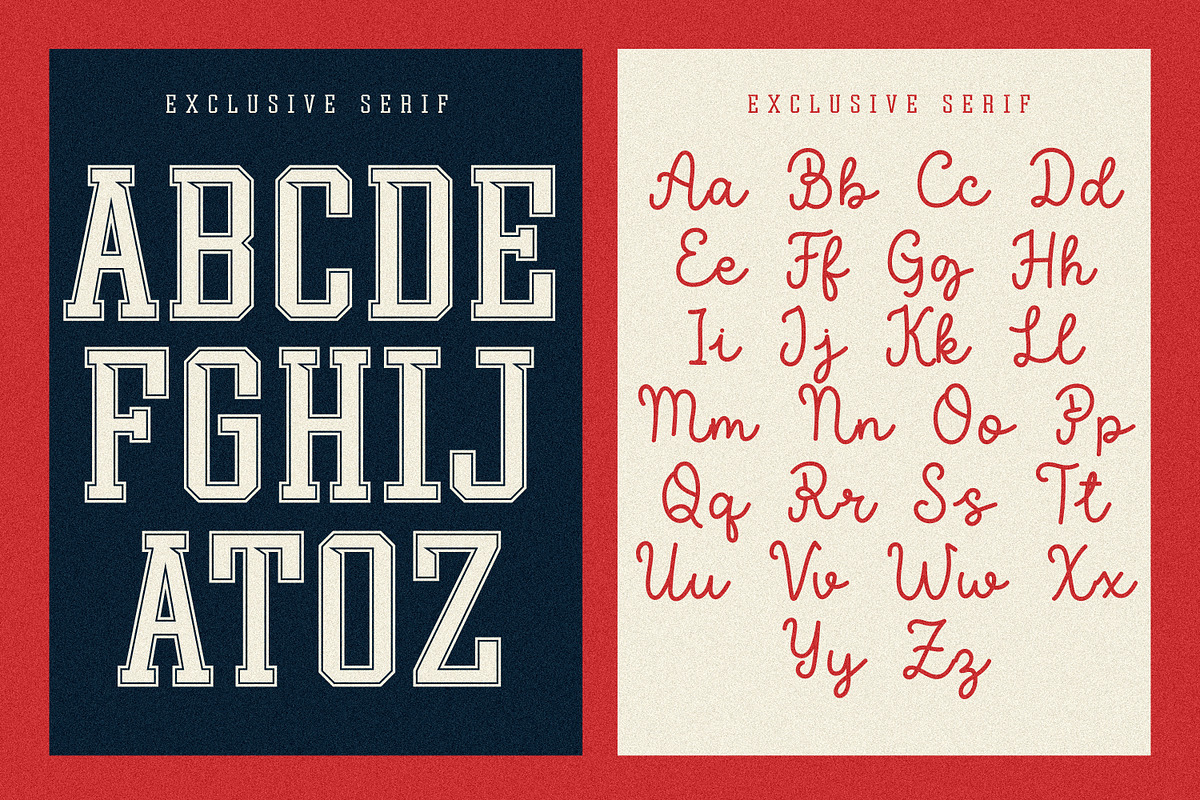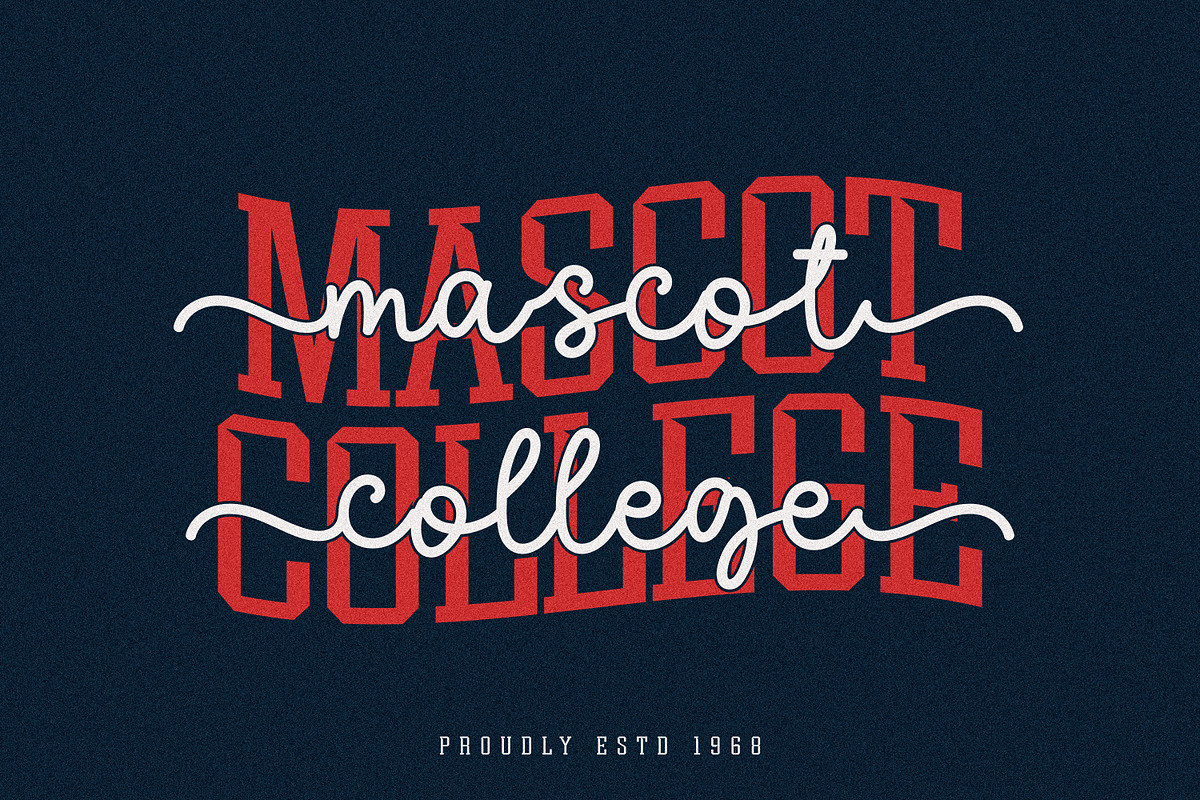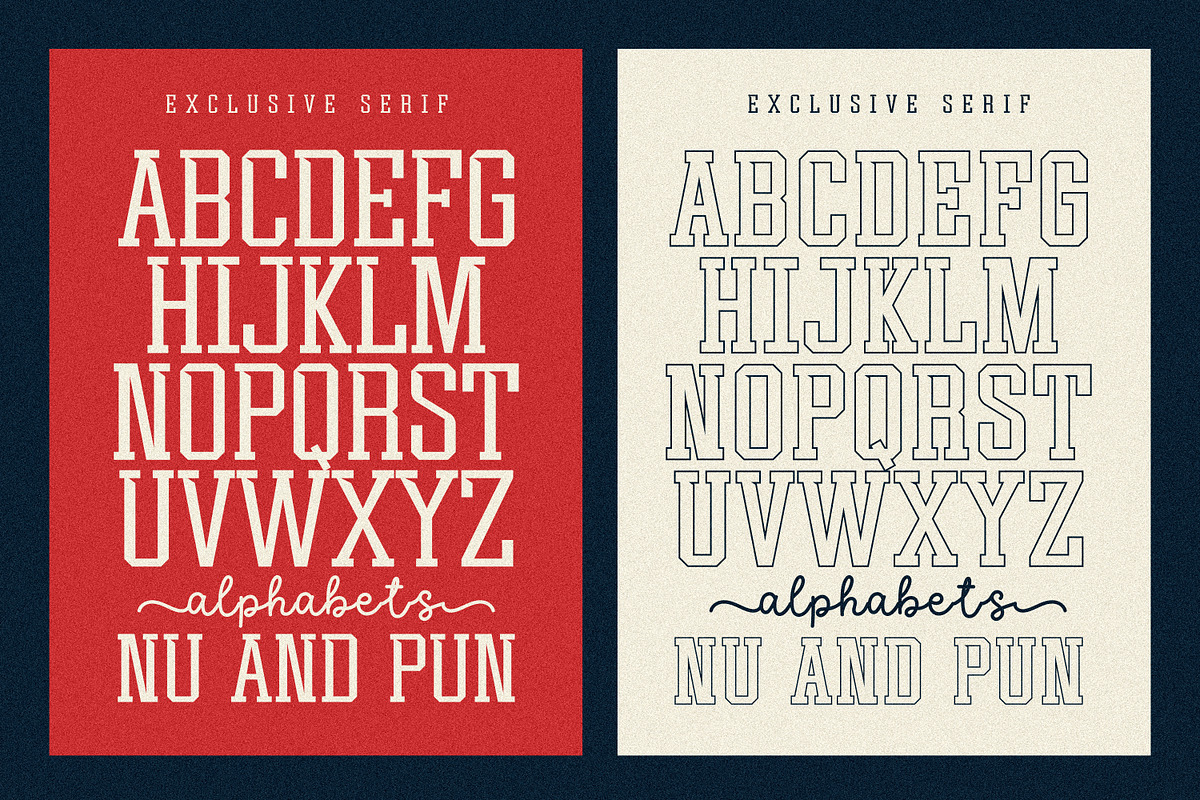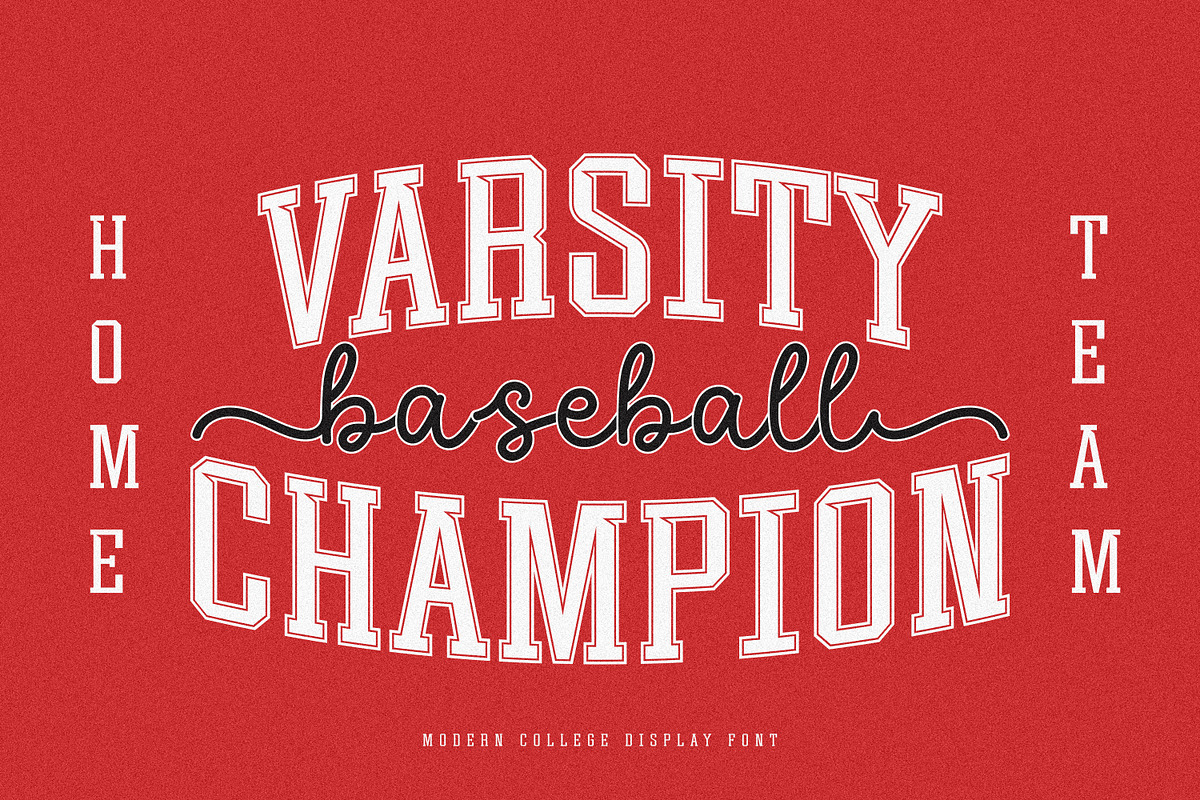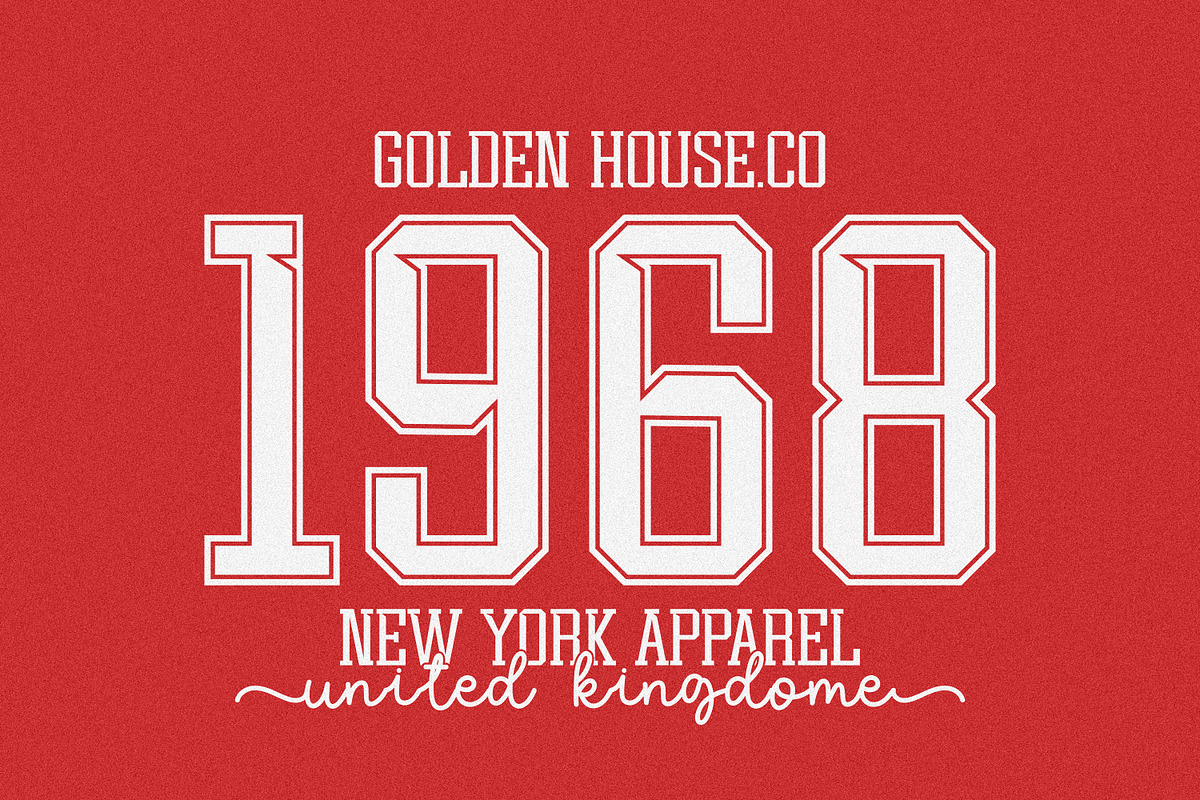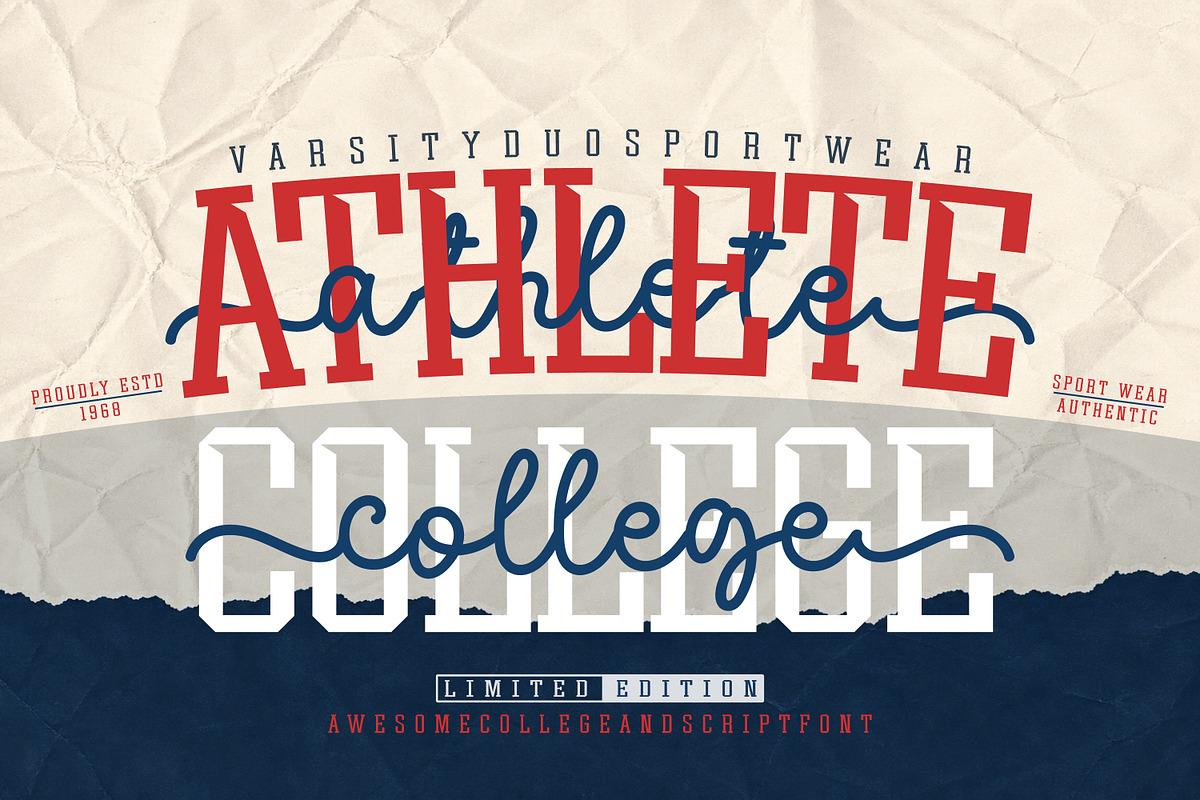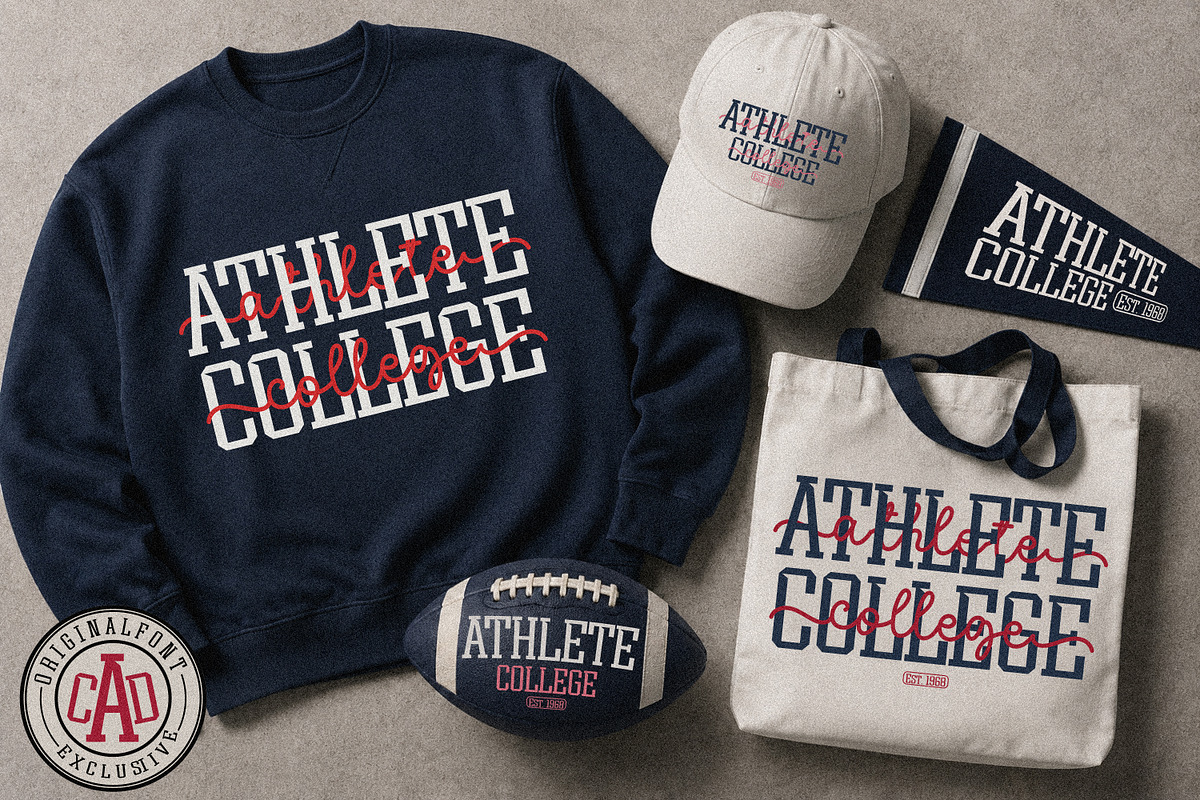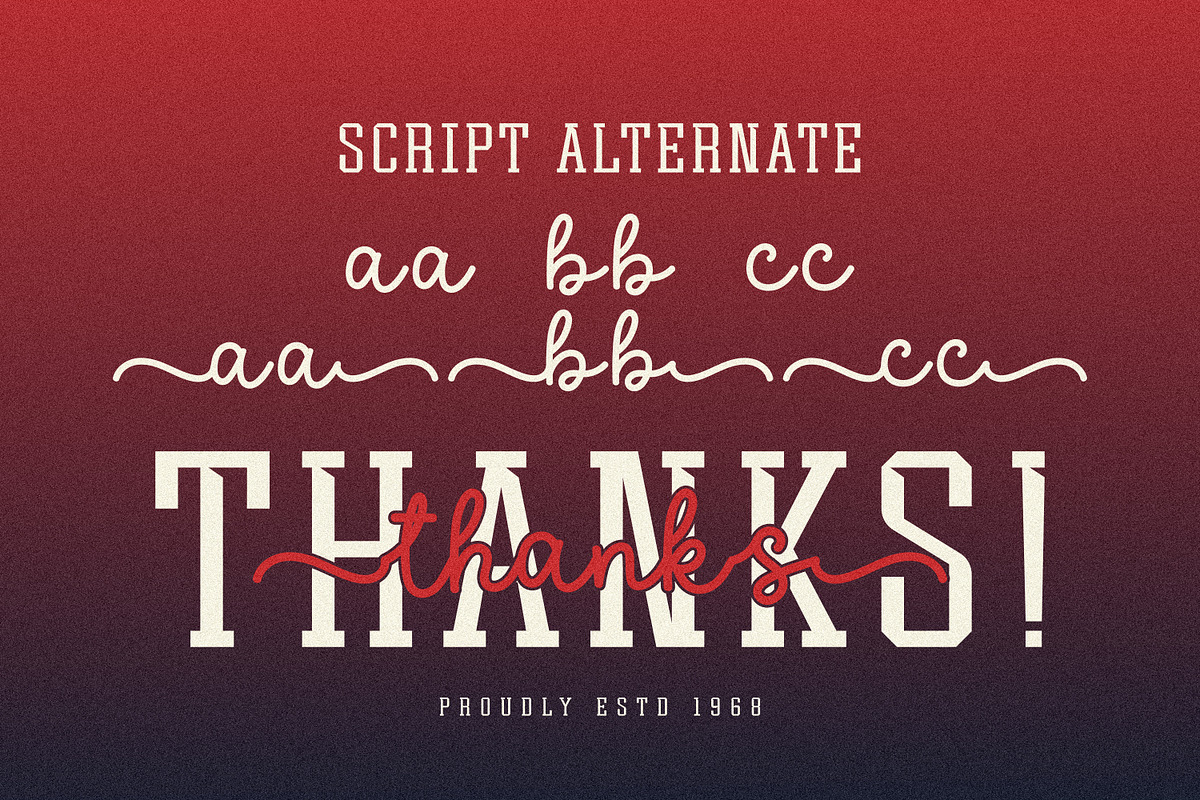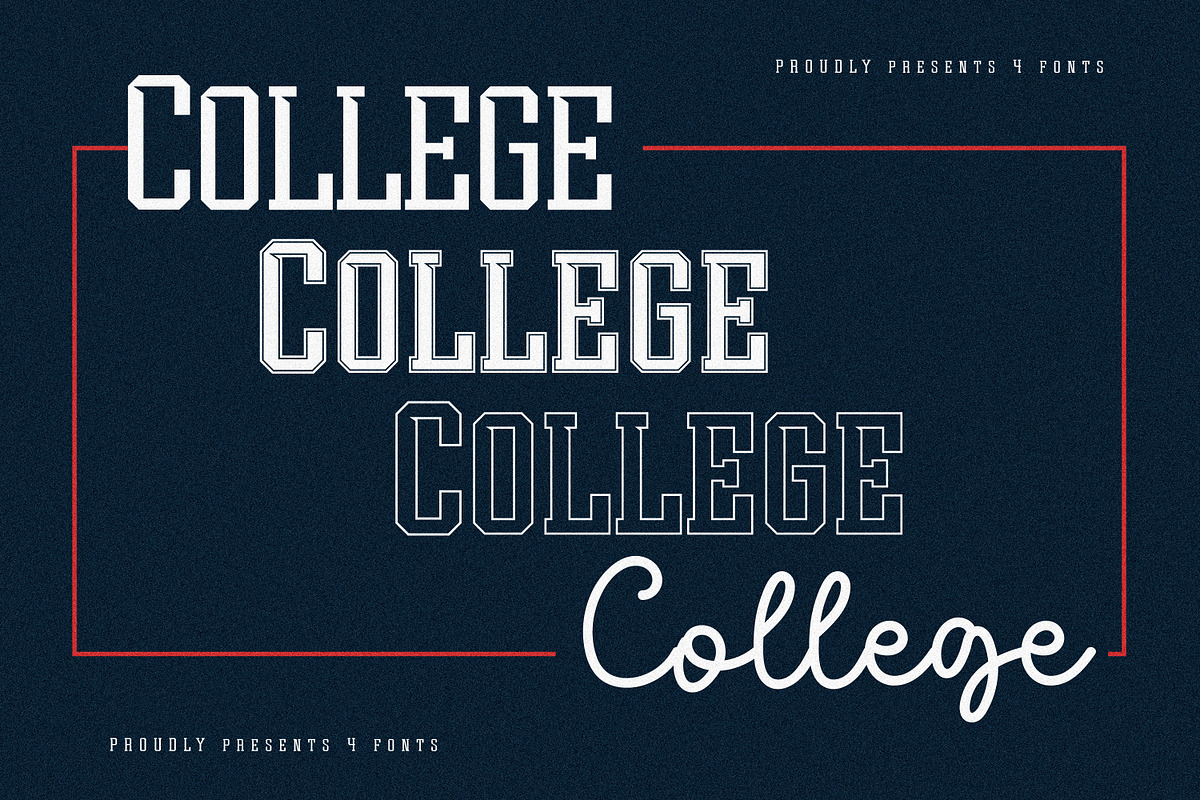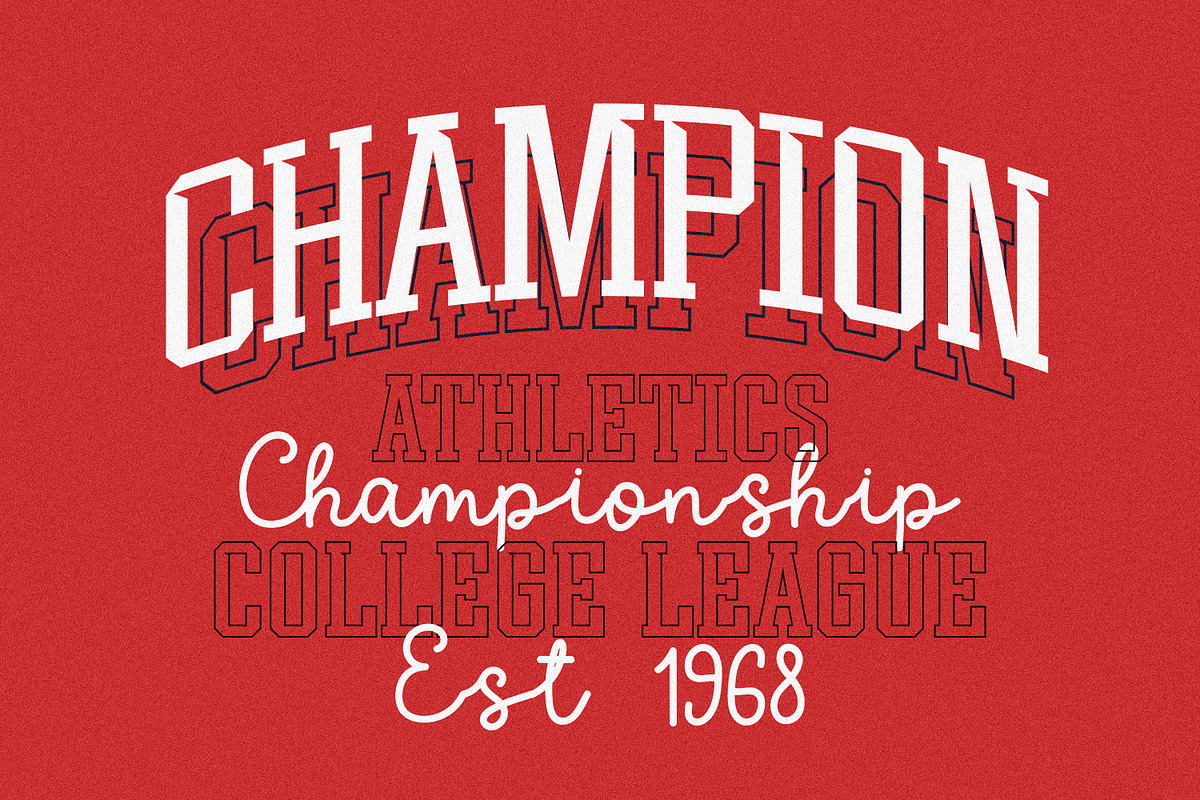
Athlete College Duo
Add a powerful retro-athletic feel to your typography with this versatile Athletic College varsity font collection. Inspired by vintage college lettering, sports uniforms, team logos, and retro American athletics, this font combines a strong collegiate character with stylish display details for a confident, nostalgic look.
Designed for both sporty and creative projects, Perfect for creating sports logos, team branding, school designs, club badges, apparel, posters, merchandise, social media graphics, packaging, and more. Its versatile varsity aesthetic makes it easy to create designs that feel energetic, competitive, and timeless.
The font collection includes complementary styles that can be mixed and matched to create distinctive varsity compositions—from strong collegiate lettering to expressive script and outlined treatments.